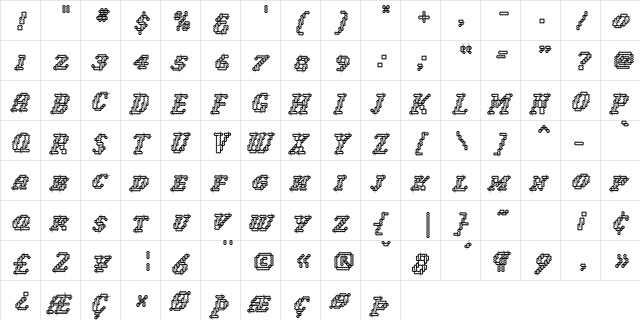
NarlyInline Inline
Design Context for NarlyInline Typeface
NarlyInline is built around its visual character rather than neutral utility — its distinctive forms are designed to make an impression at display sizes.
Originally released in 1993, this typeface is available in OpenType (OTF) format.
Font Pairing: Pair with a clean neutral sans-serif for body copy to let NarlyInline's character lead without overwhelming the composition.
Pro Tip: Use NarlyInline exclusively at display sizes — it was designed to be seen, not read at length. Let a neutral companion handle body copy.